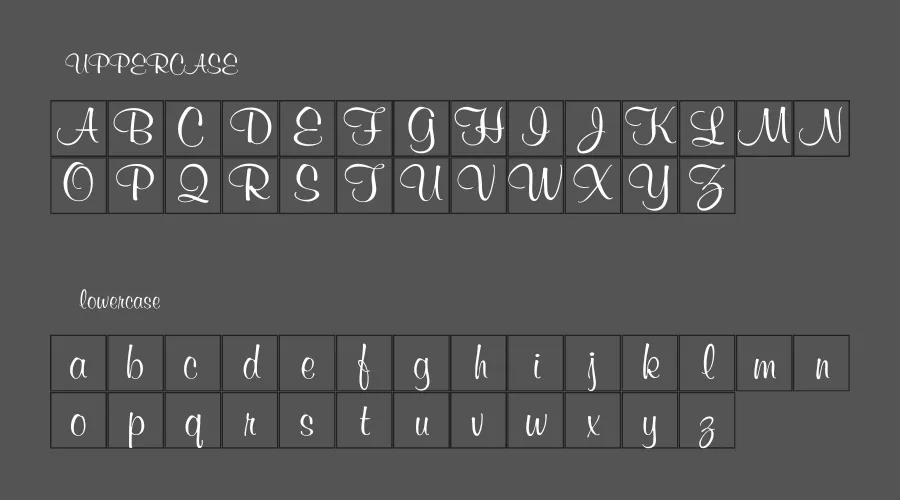
About Murray Hill Font
The Murray Hill font family is a good-looking and attractive typeface that was designed by a famous graphic designer known as the name of Emil J. Klumpp. This font was published in 1956. It is one of the most popular script typefaces and has been used in many publications, logos, signage, and advertising campaigns.